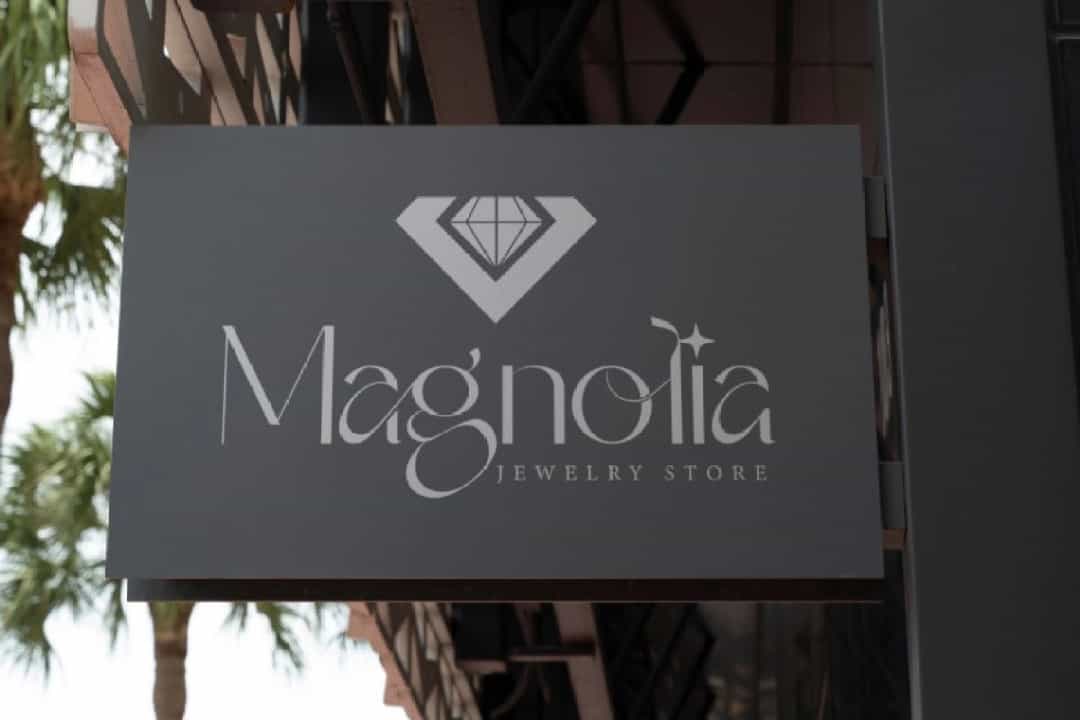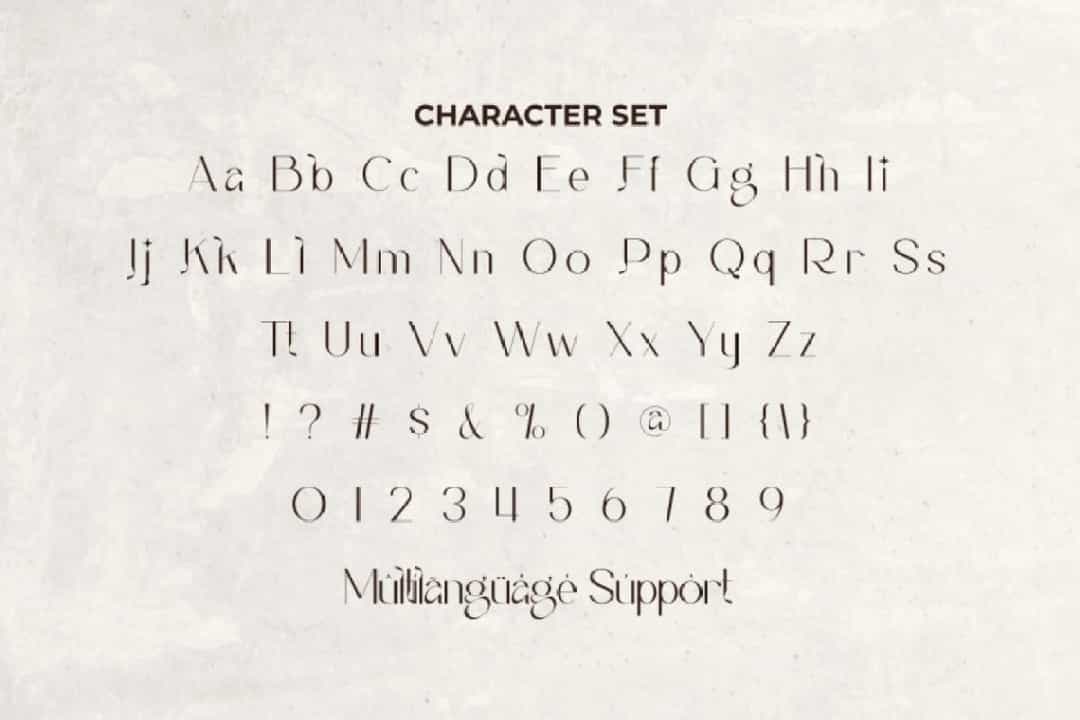
Fashionable is an elegant typeface for display designed to reflect today’s world of trends and style. It features an intriguing yet perfectly legible font which makes it suitable for every artistic project, such as logo design, brochure invitation label printing, magazine catalog cataloguing, price tags sign insertion, display pricing tags signing/quoteing stationery etc as well as web header pages etc.